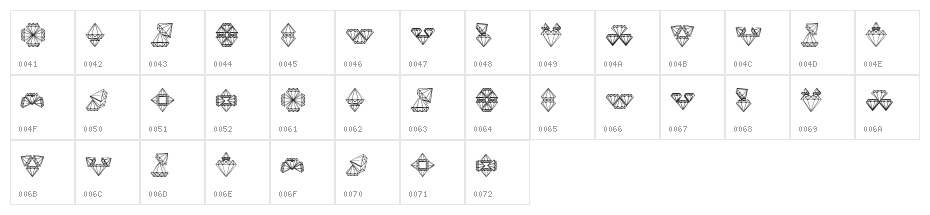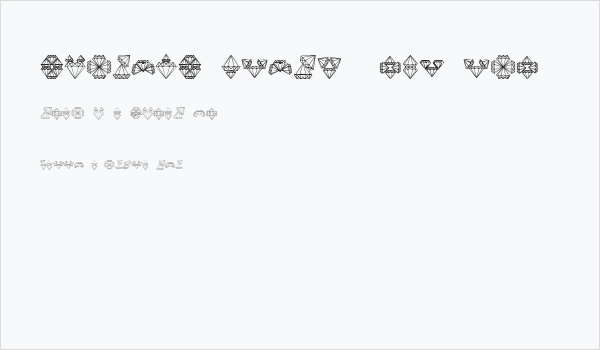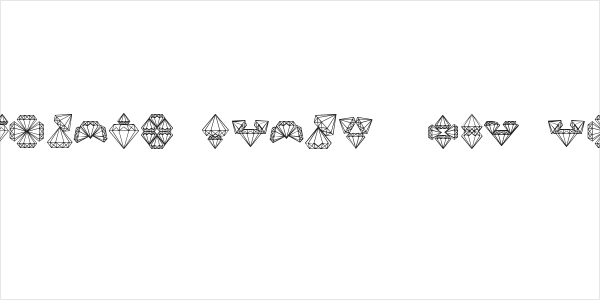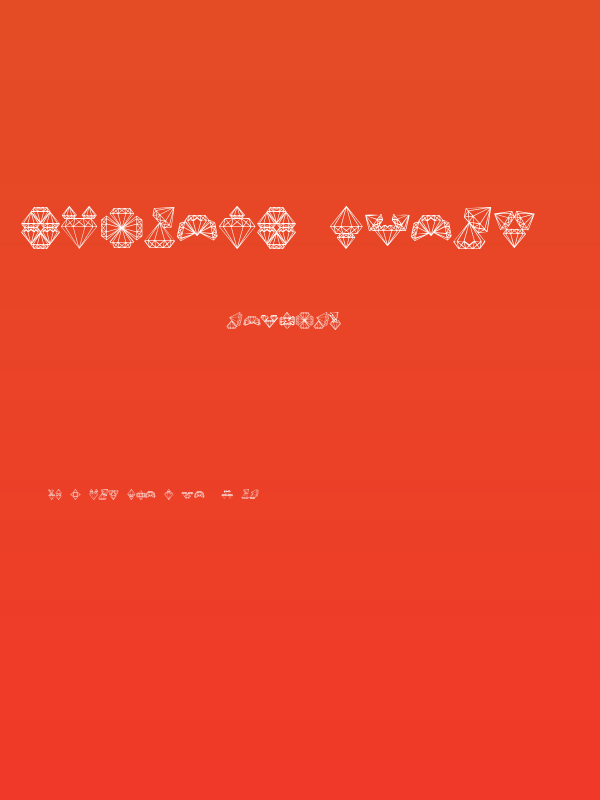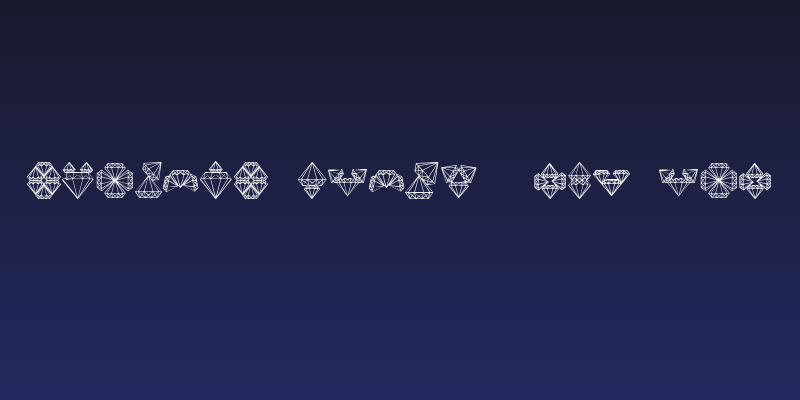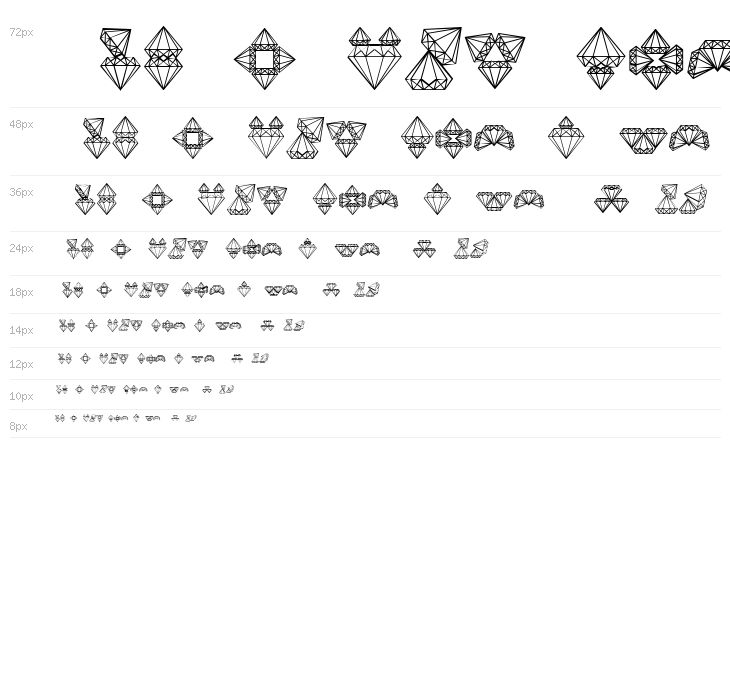
Diamond Blocks Regular Font
Diamond Blocks Regular Description
This font features a unique and decorative style, with each character designed to resemble intricate diamond shapes. The geometric patterns within each letterform create a sense of luxury and elegance, making it stand out as a display typeface. The design is highly detailed, with lines and facets that mimic the appearance of cut gemstones. This font is not suitable for body text due to its complexity but excels in creating eye-catching headlines and artistic designs.
| Use Case | Headlines, Logos, Artistic Designs |
| Proposed Projects | Ideal for luxury branding, jewelry advertisements, artistic posters, and event invitations where a touch of elegance and sophistication is desired. |